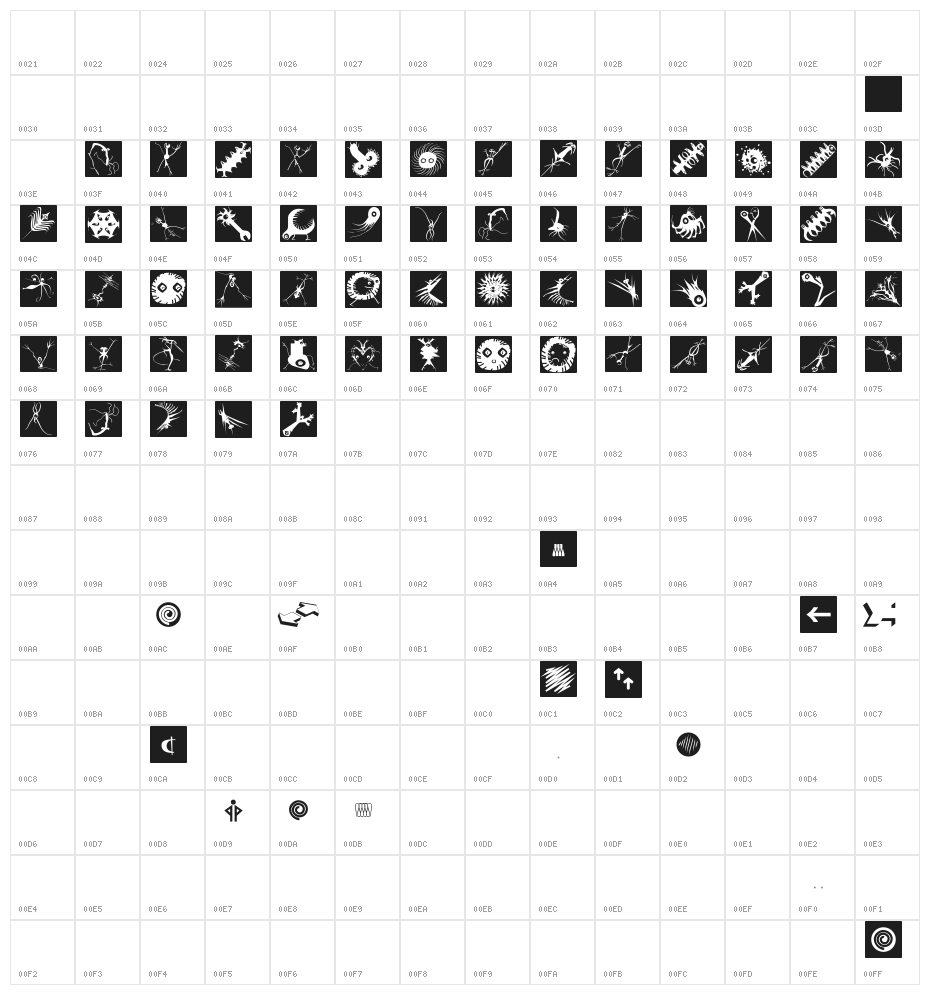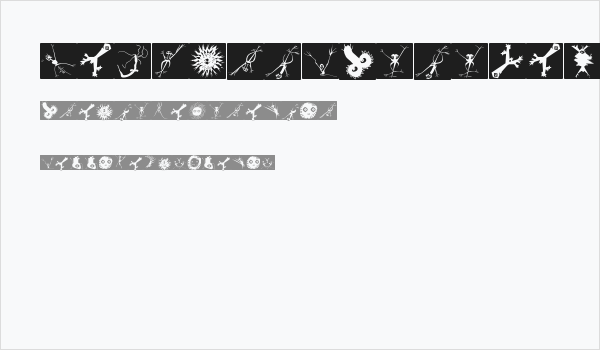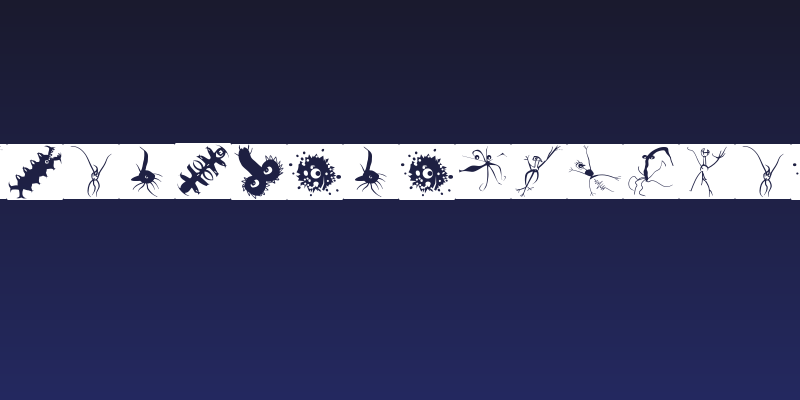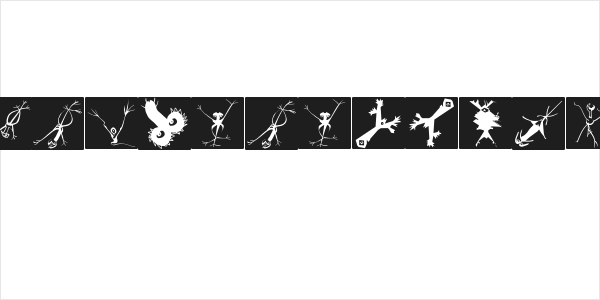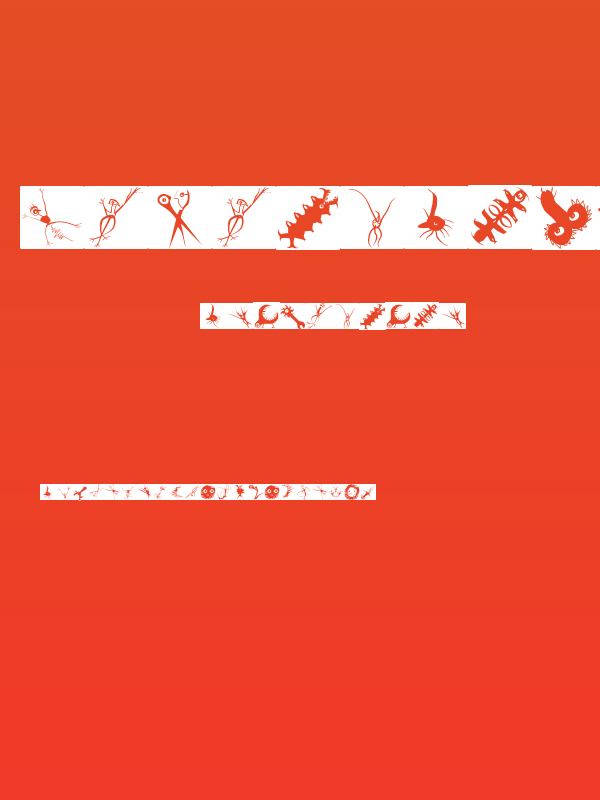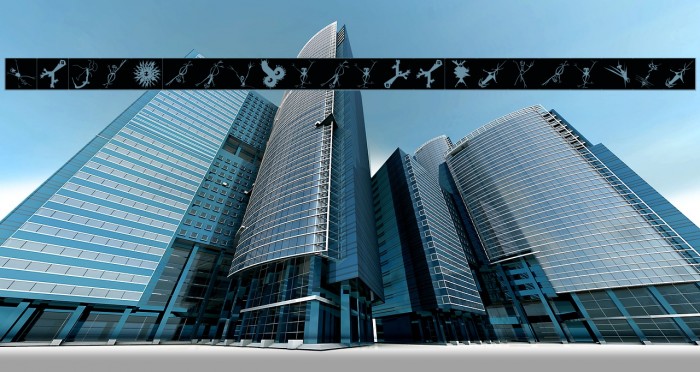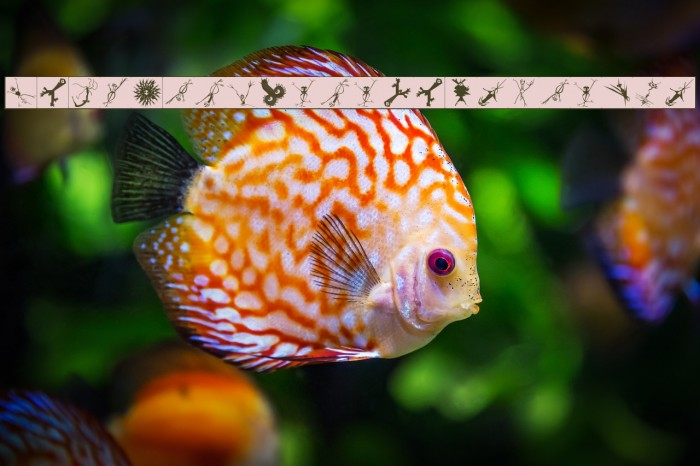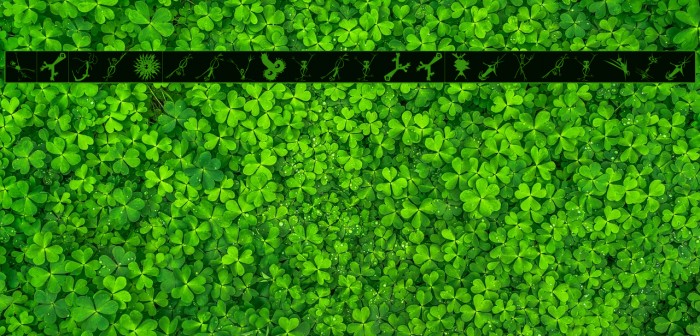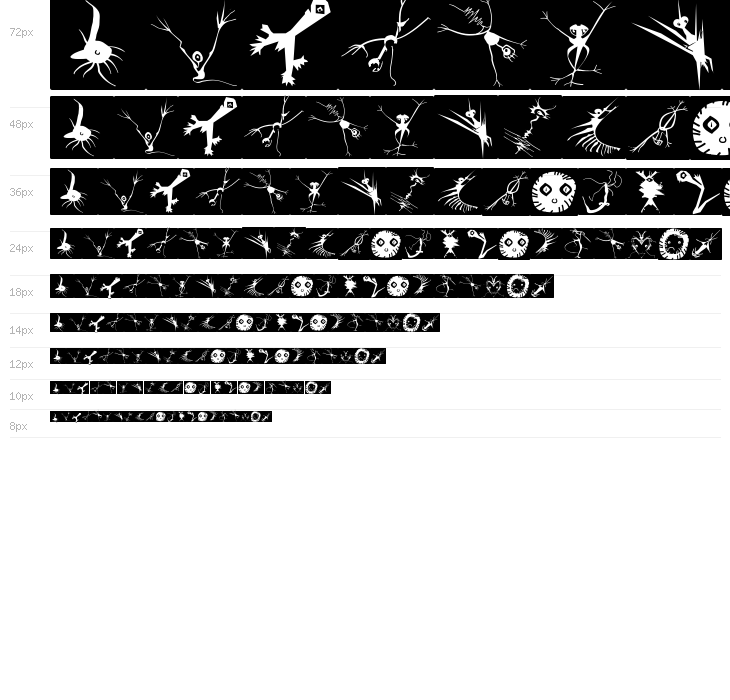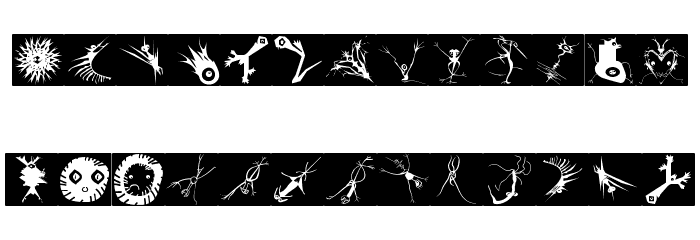
NewEarthCitizensBricks Font
NewEarthCitizensBricks Description
A highly decorative and abstract dingbat font featuring whimsical, organic, and surreal shapes reminiscent of microscopic organisms or fantastical creatures, rendered in white on black backgrounds with high visual contrast.
| Overall Style | Decorative, Abstract, Surreal |
| Use Case | Logos, Headlines, Decorative elements, Art projects |
| Proposed Projects | Posters, album covers, science fiction or fantasy projects, experimental art, branding for creative industries, event invitations. |